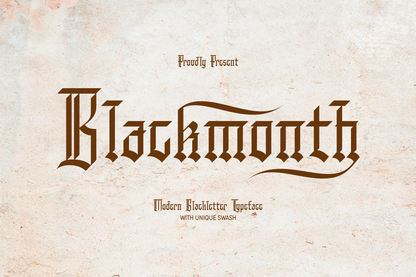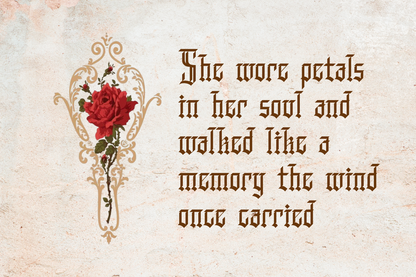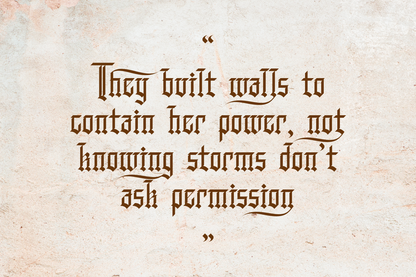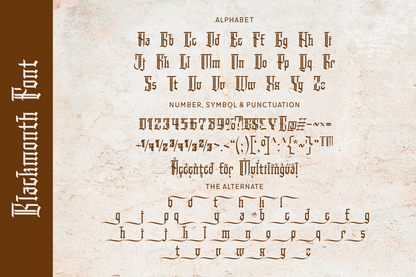
Blackmonth is a modern blackletter font with sweeping swashes and angular forms. Its gothic elegance is ideal for tattoos, band logos, and editorial titles that demand drama and edge.